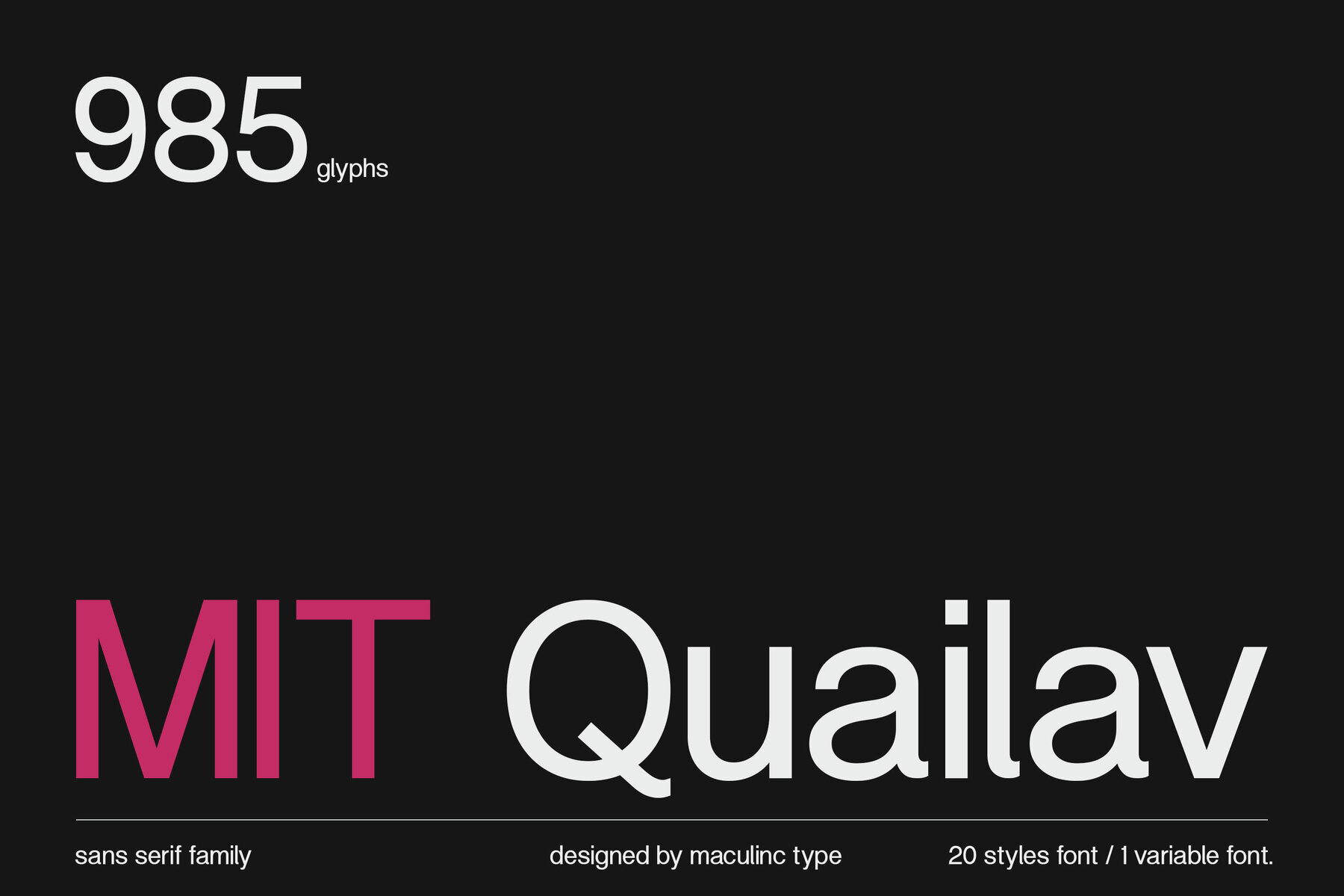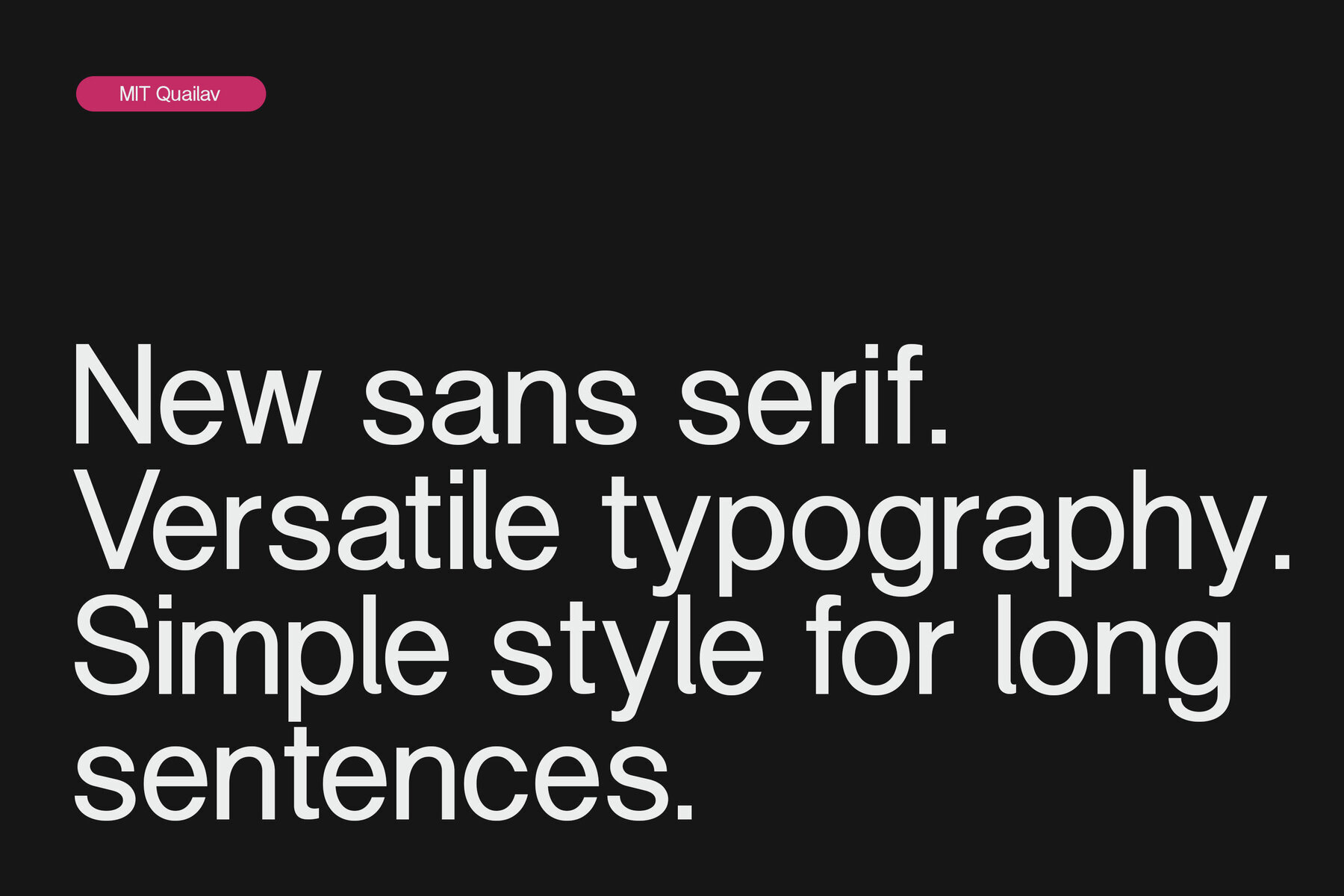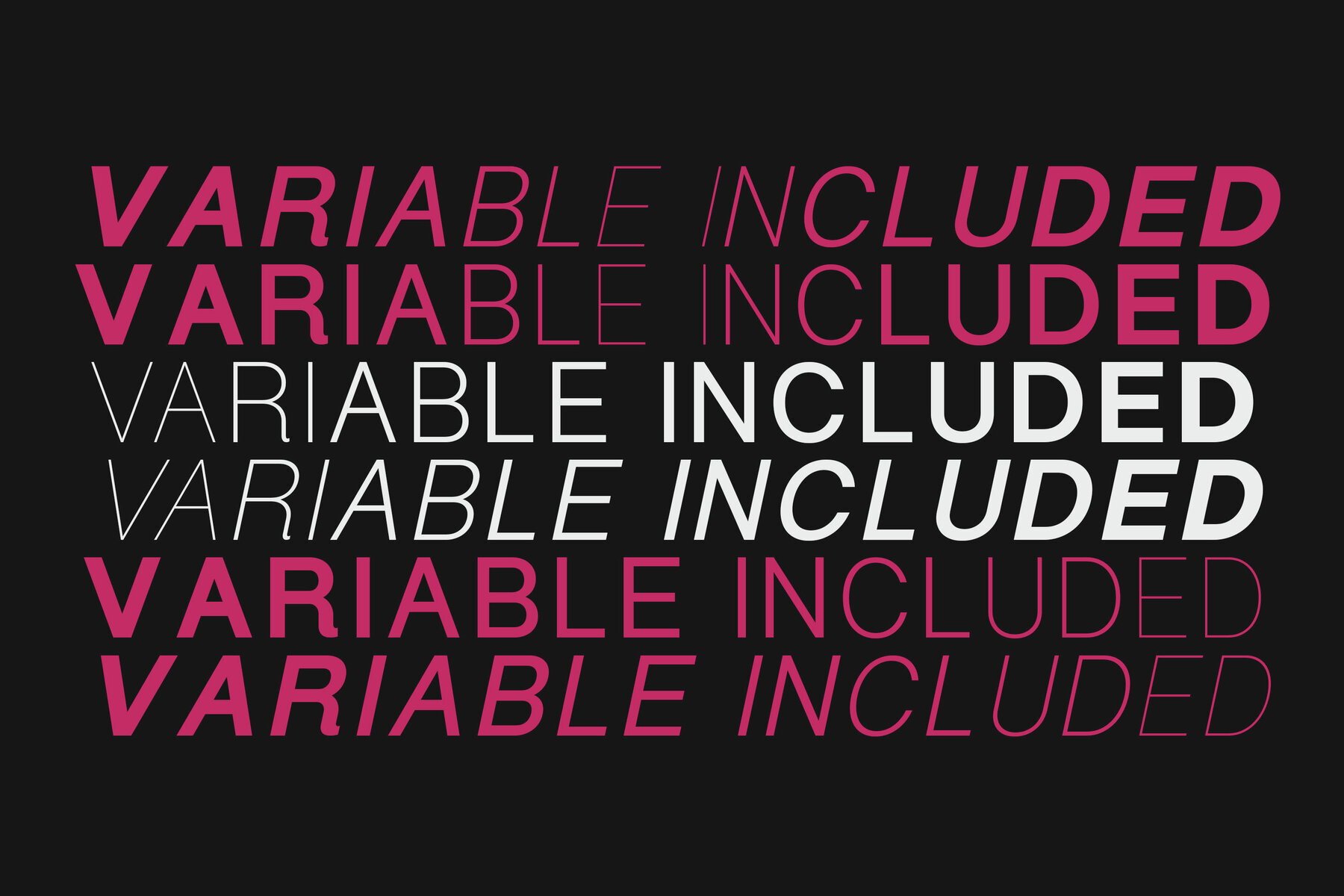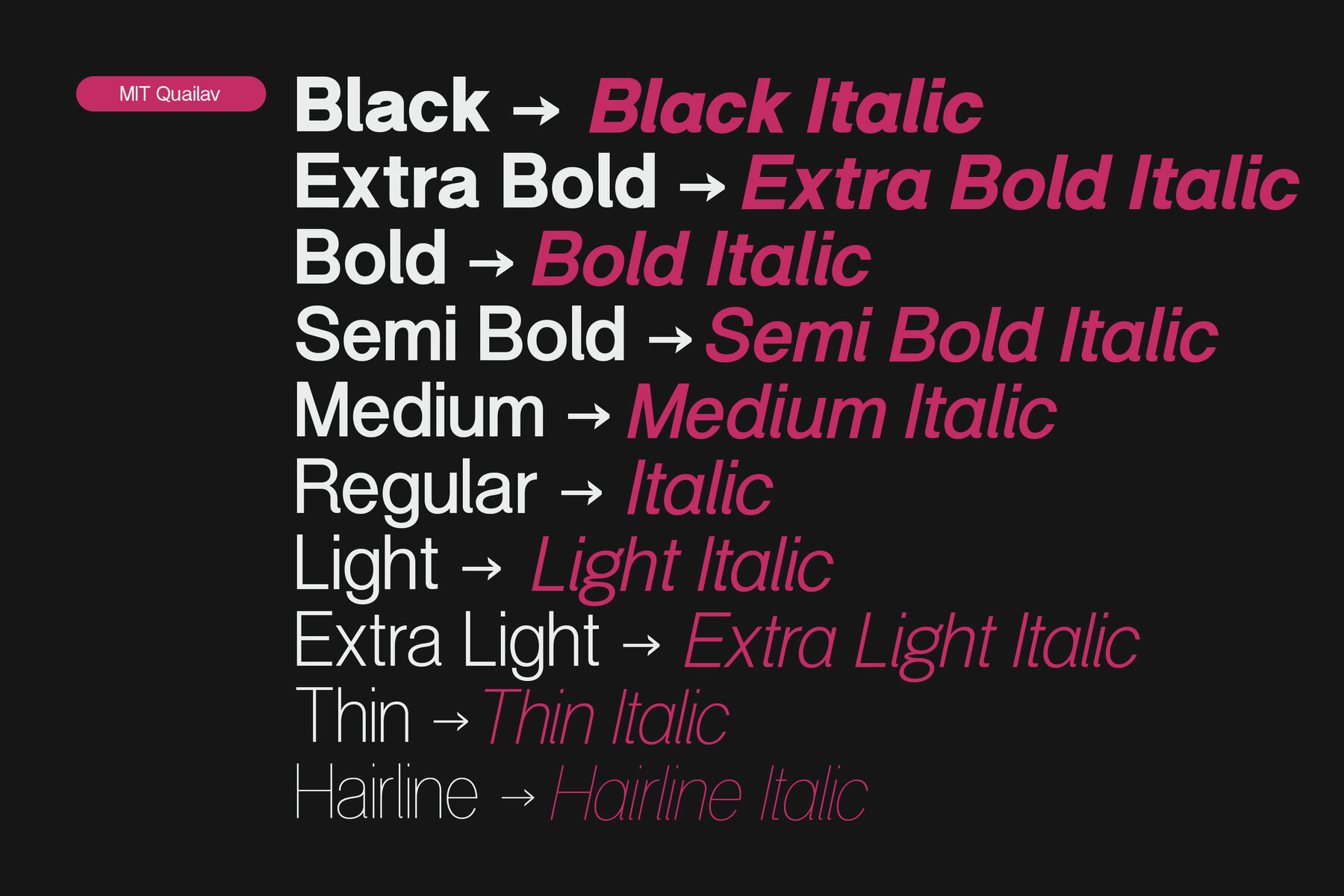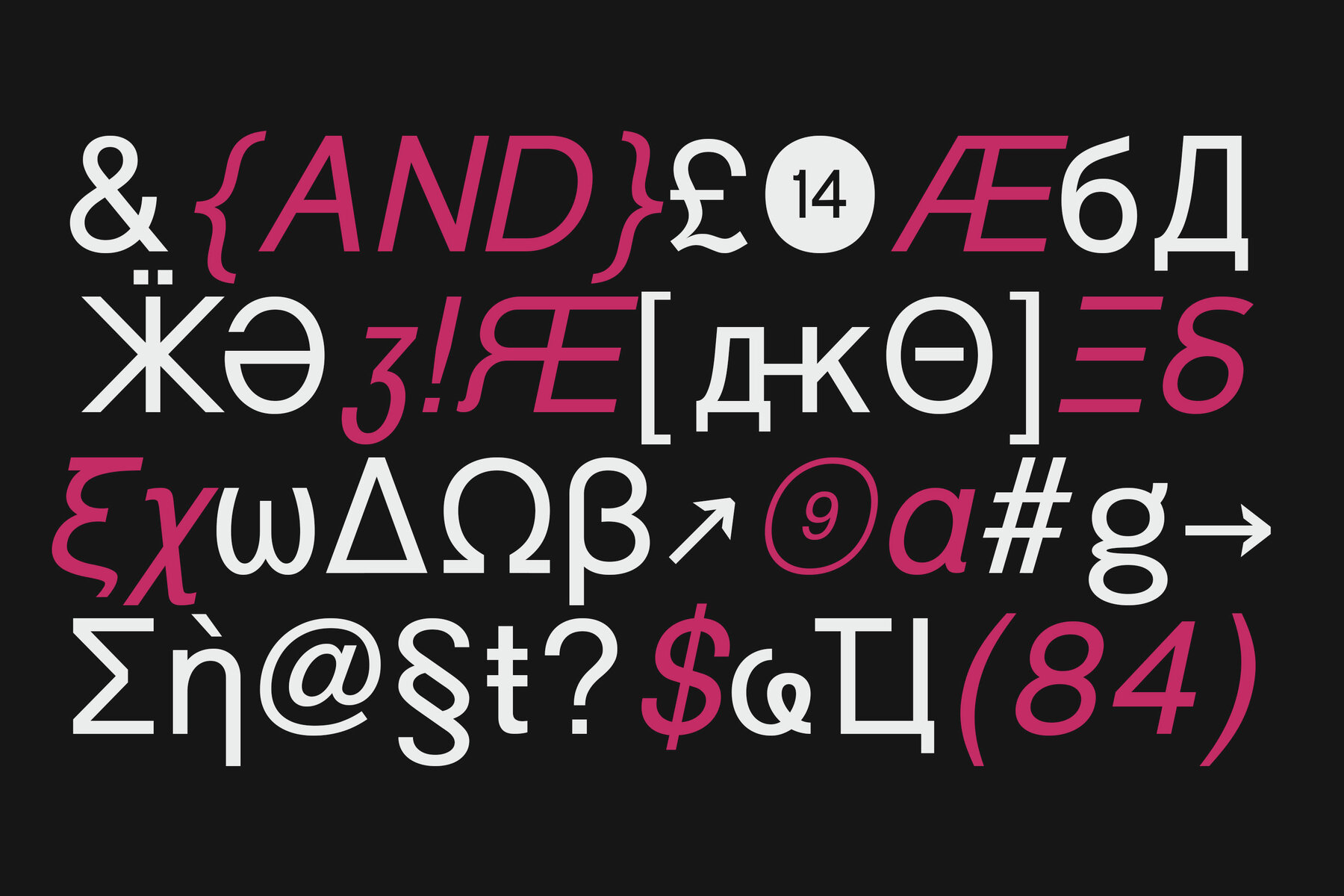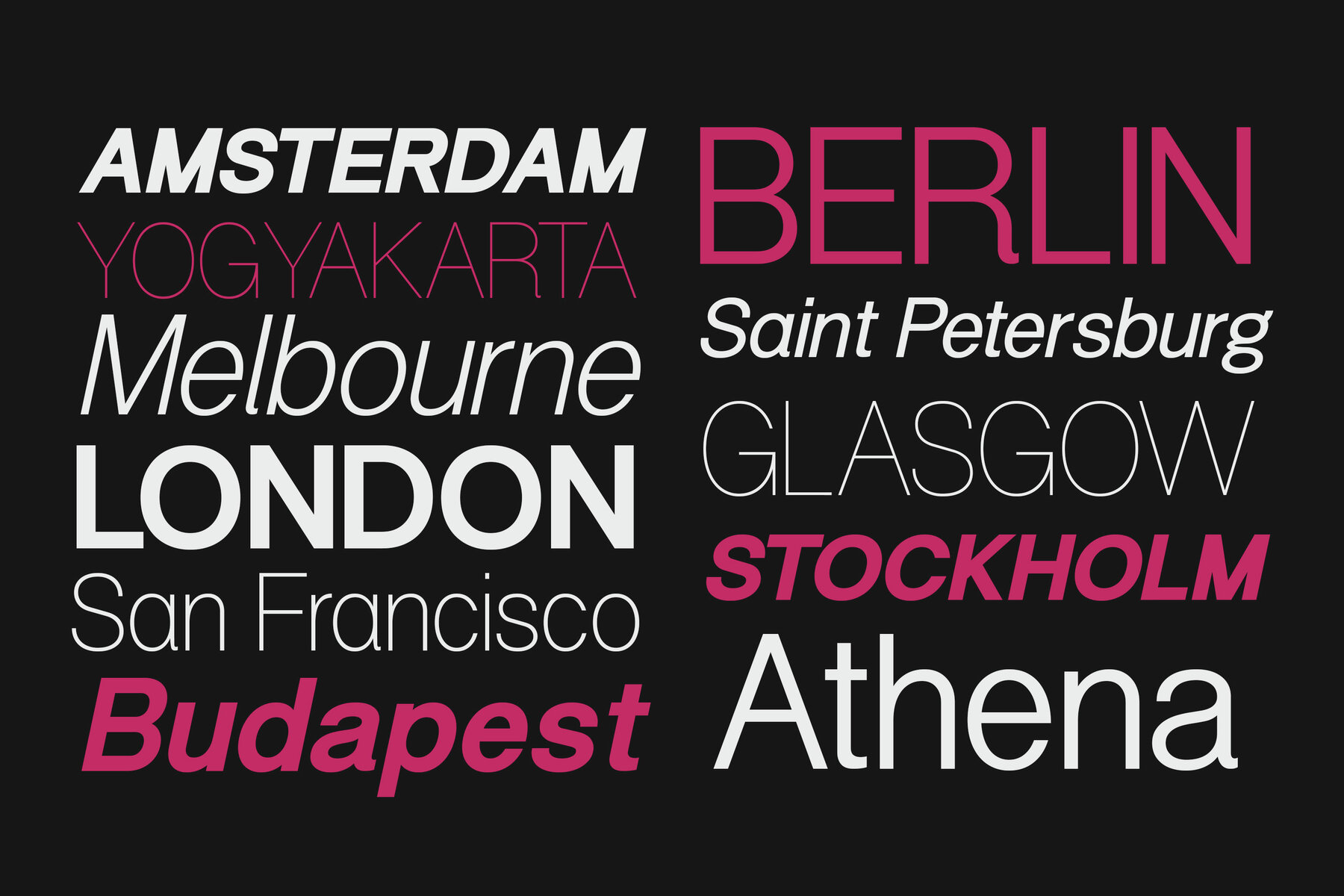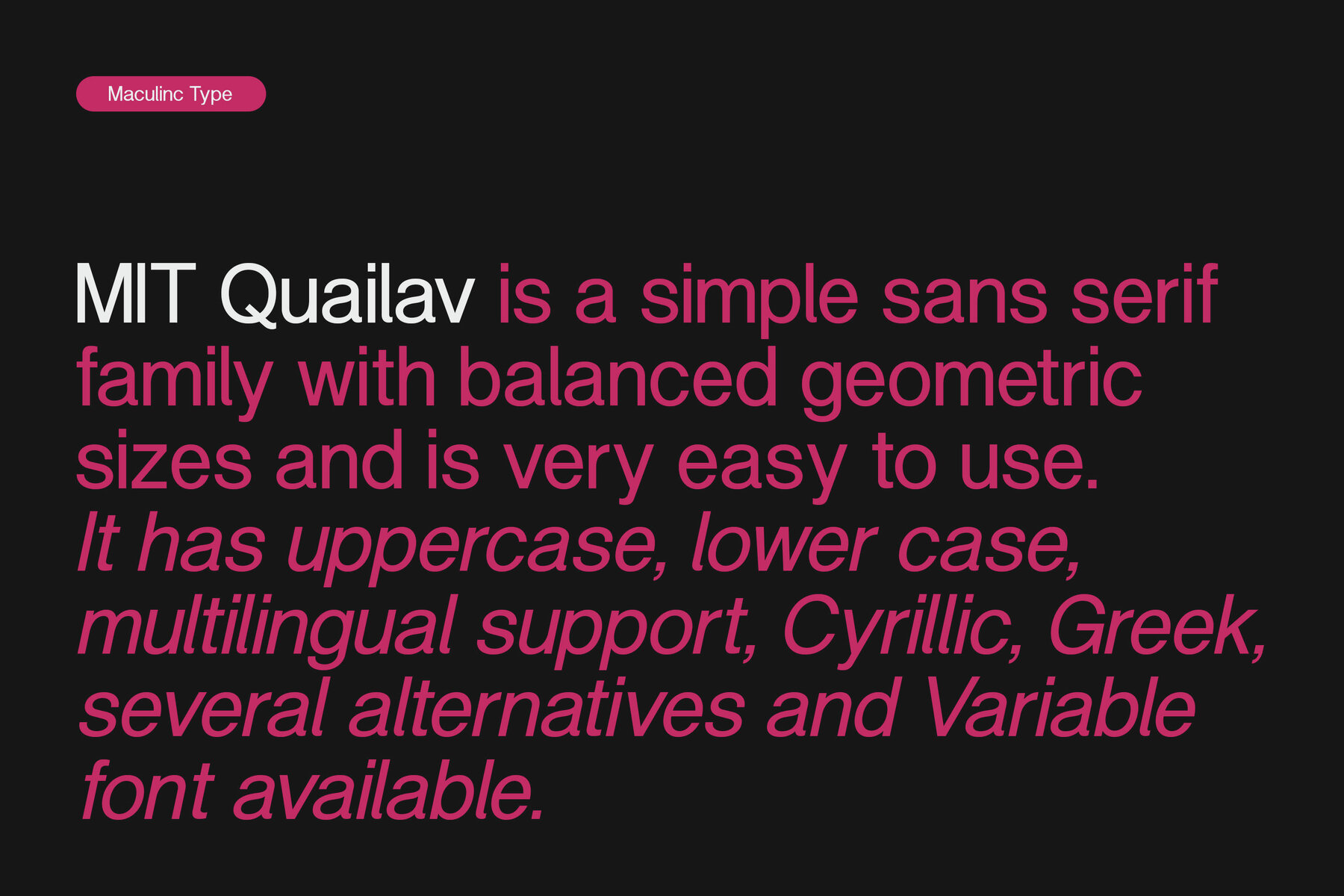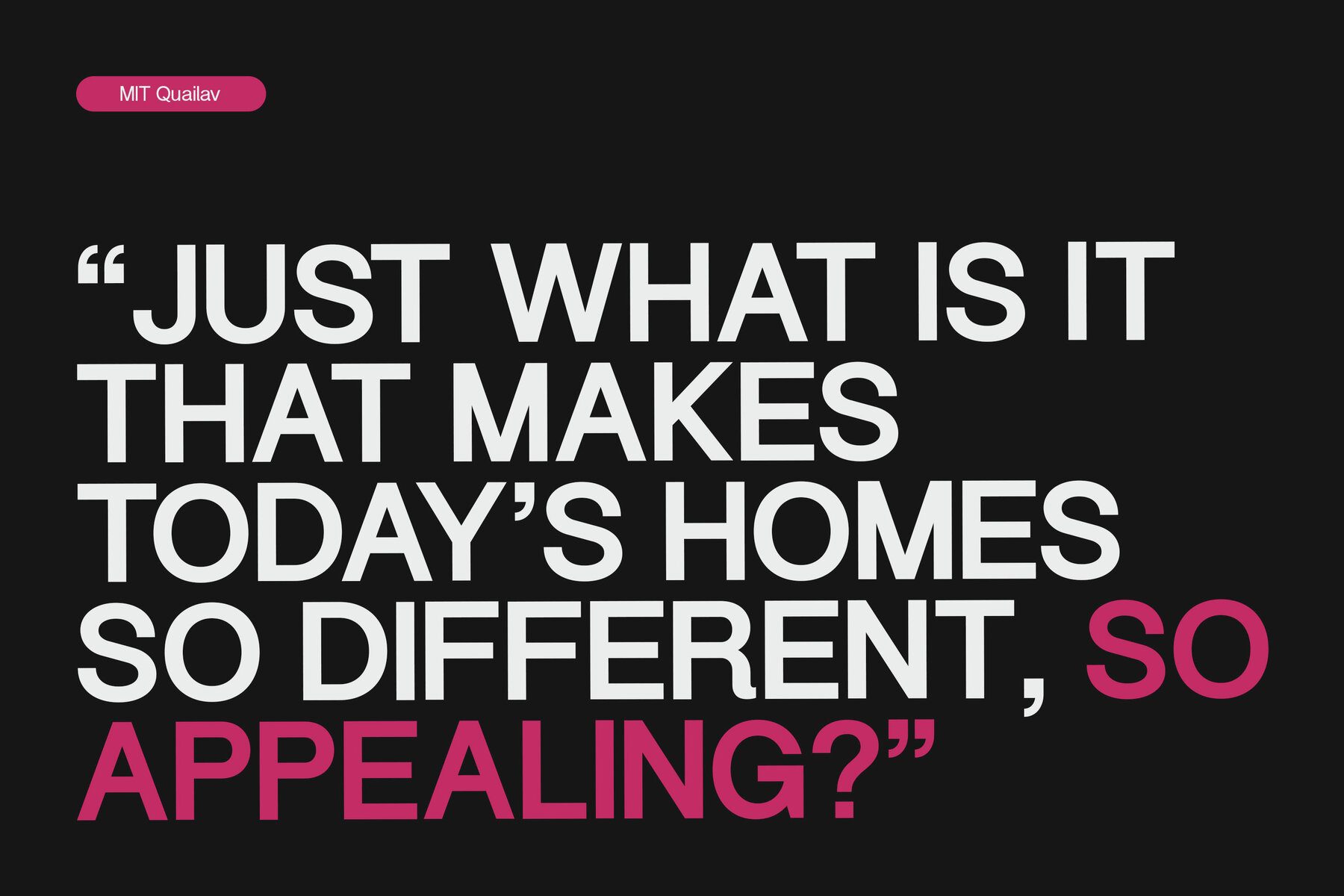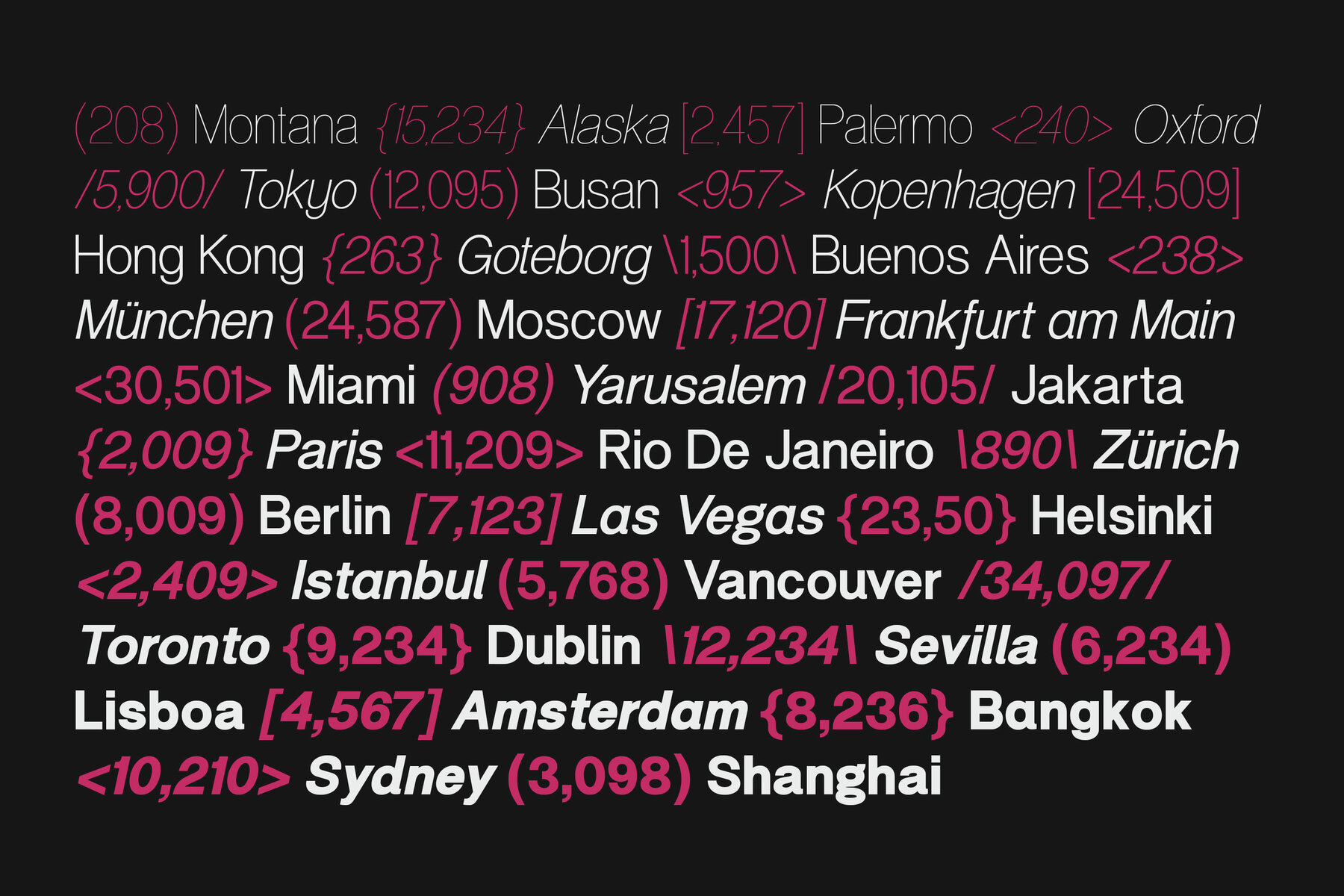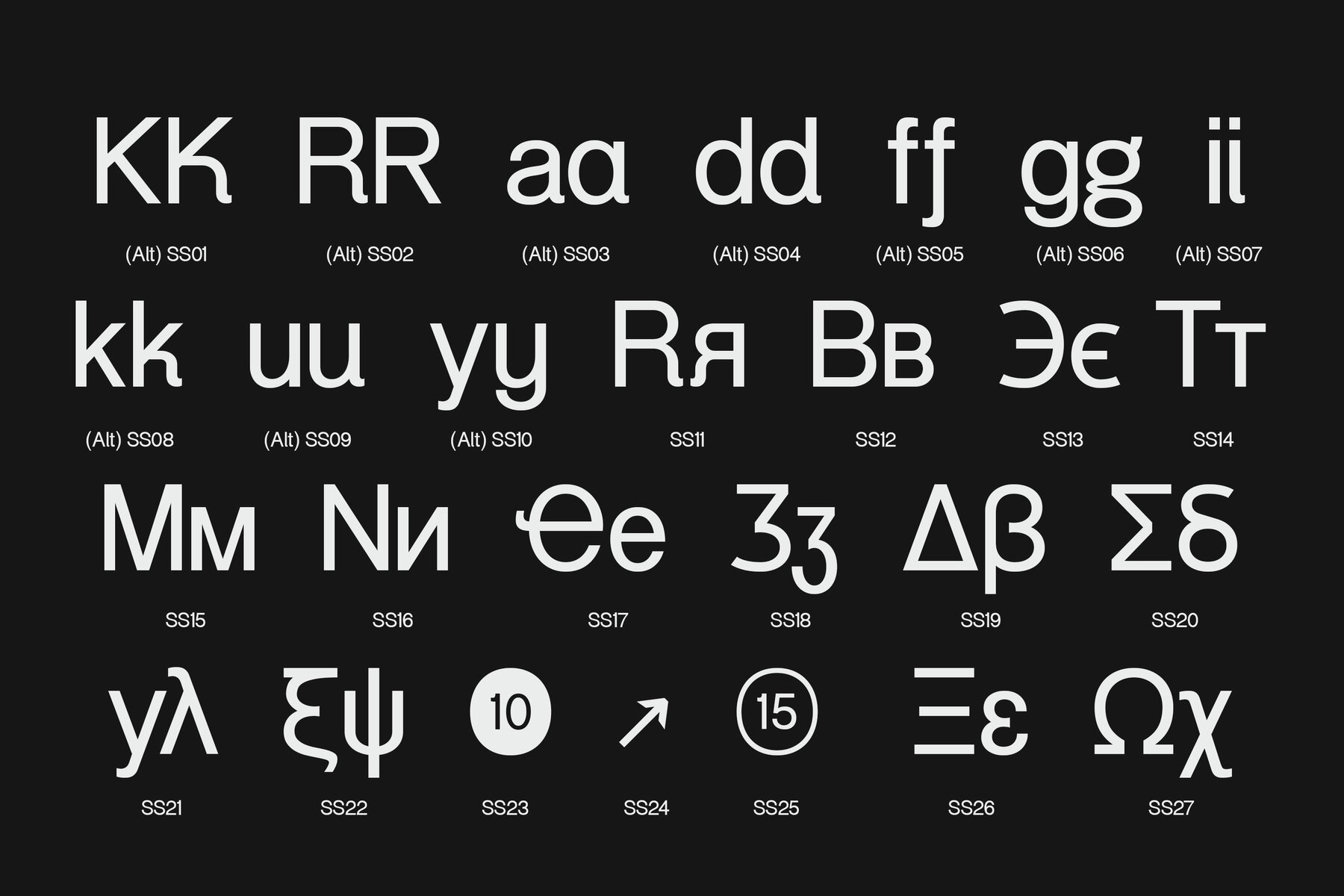
MIT Quailav Font
The MIT Quailav sans serif family offers a simple yet profound geometric balance tailored for seamless application across various design projects. Admired for its neutral yet distinctly recognizable characters, this font supports a comprehensive character set, including uppercase, lowercase, multilingual options, Cyrillic, Greek, and more. All terminals align harmoniously, contributing to a uniform stroke symmetry. The creation of MIT Quailav embodies a commitment to practical design with an inherent aesthetic. Envisioned as a designer’s versatile tool, it provides an extensive font selection and comprehensive language support to address diverse creative needs. MIT Quailav is adaptable to contemporary projects, making it an ideal fit for web design, app interfaces, branding, packaging, and print media. Its clarity and readability are maintained in both running text and larger display sizes. Features:MIT Quailav Sans Serif: Geometric Precision for Versatile Design